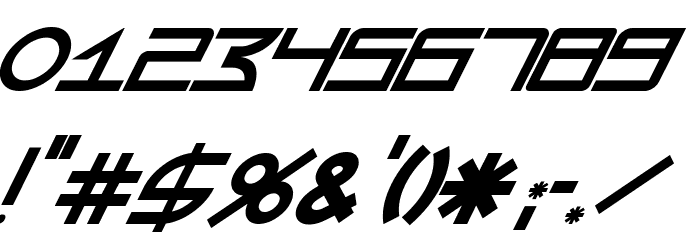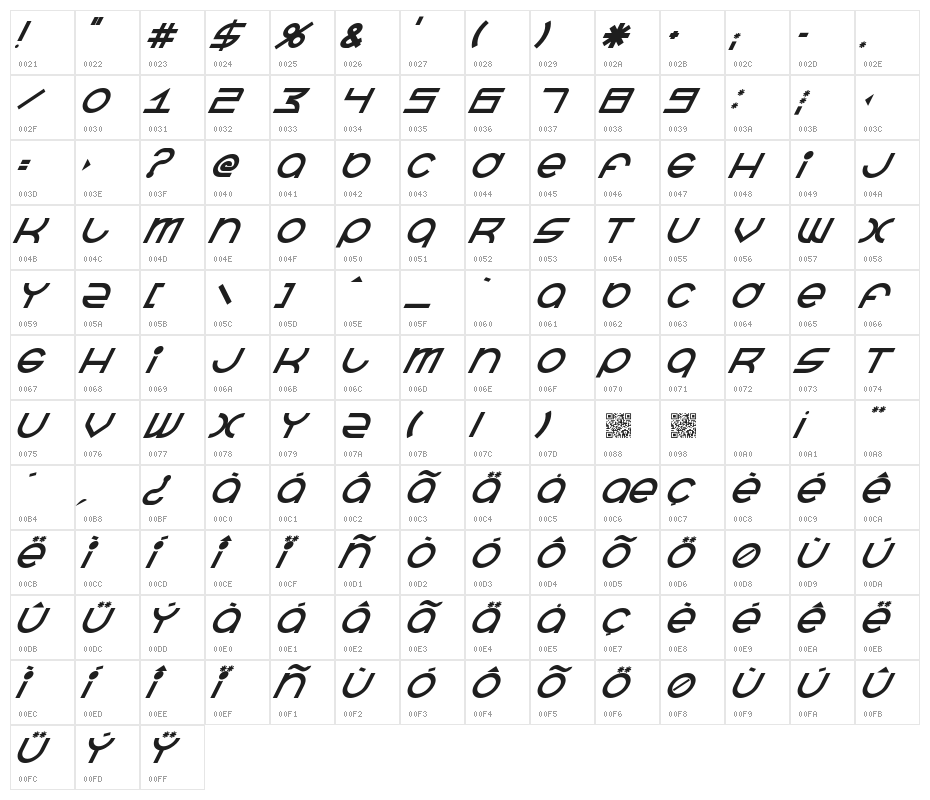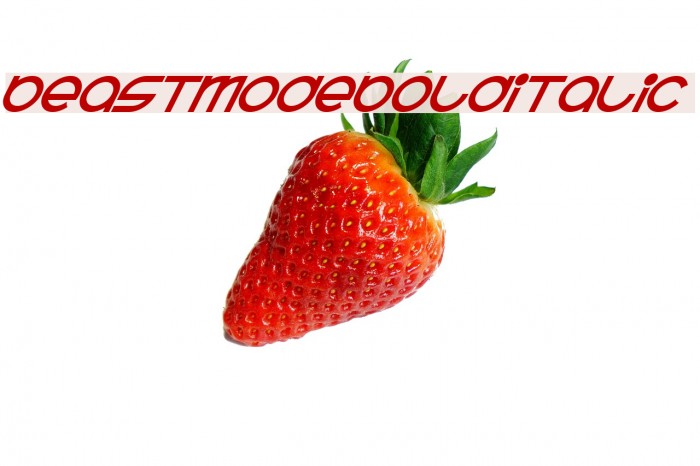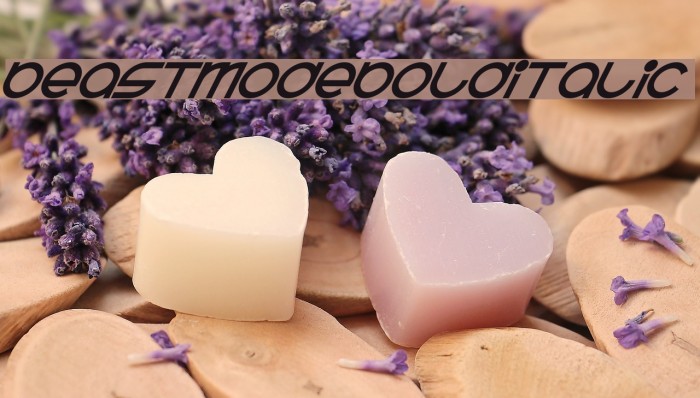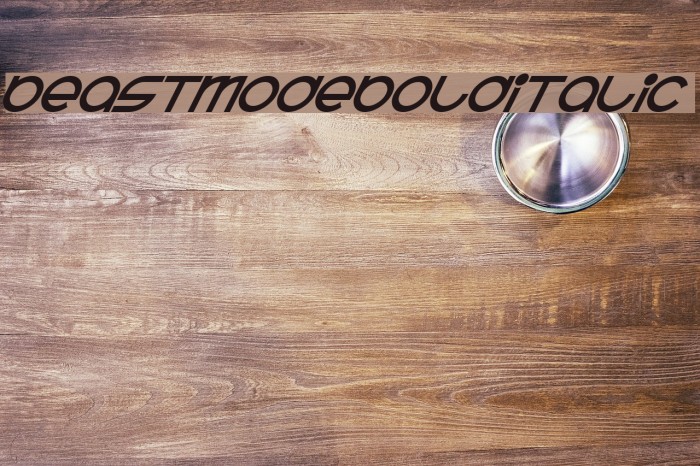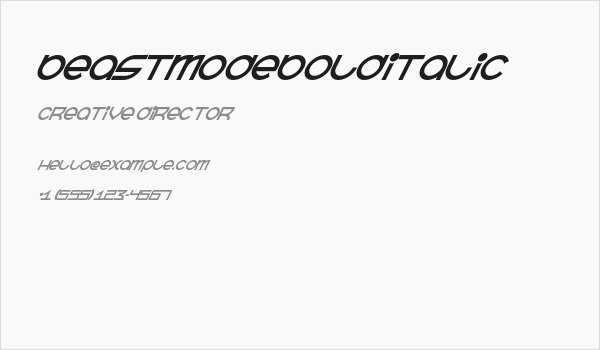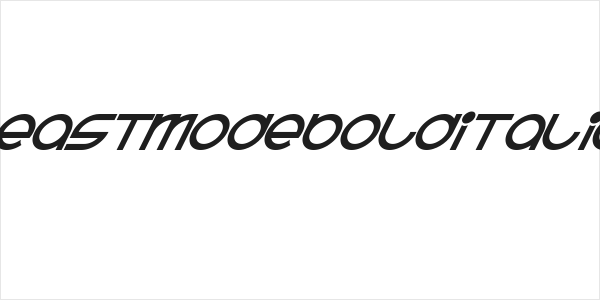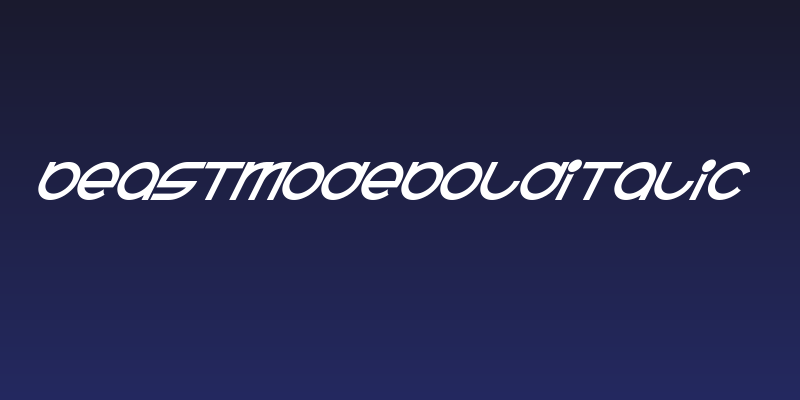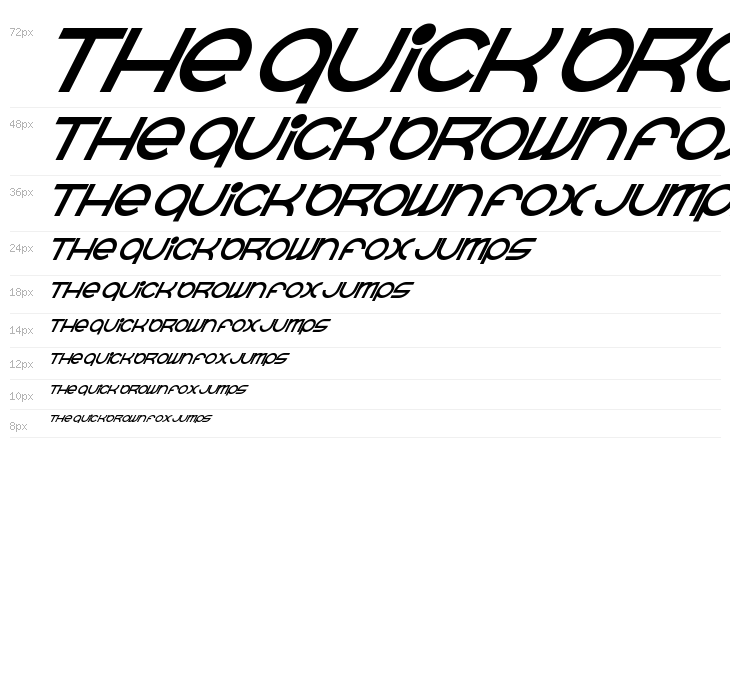
BeastModeBoldItalic Font
BeastModeBoldItalic Description
This font features a bold and dynamic style with a strong italic slant, giving it a sense of motion and energy. The characters are designed with sharp, angular edges and a futuristic aesthetic, making it stand out in any design. The uppercase and lowercase letters maintain a consistent style, with the lowercase letters mirroring the uppercase in form and structure. The numerals are equally bold and maintain the same angular design, ensuring uniformity across all characters. Special characters are included, each designed to match the overall aesthetic of the font, making it versatile for various uses.
| Proposed Projects | Ideal for sports branding, action-themed posters, video game titles, and dynamic logo designs. |